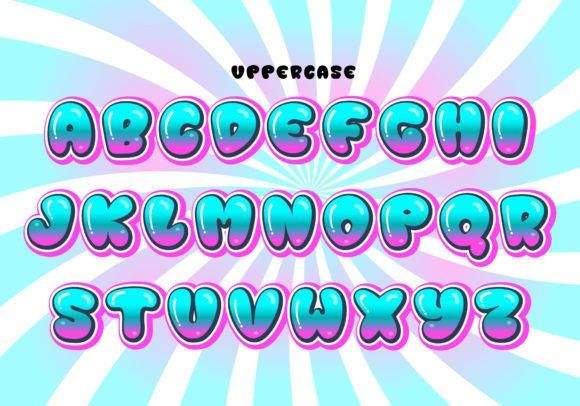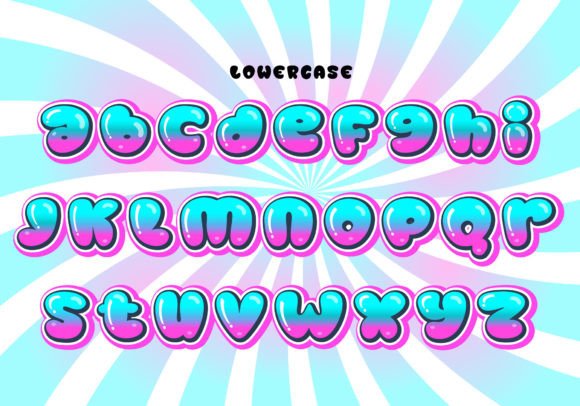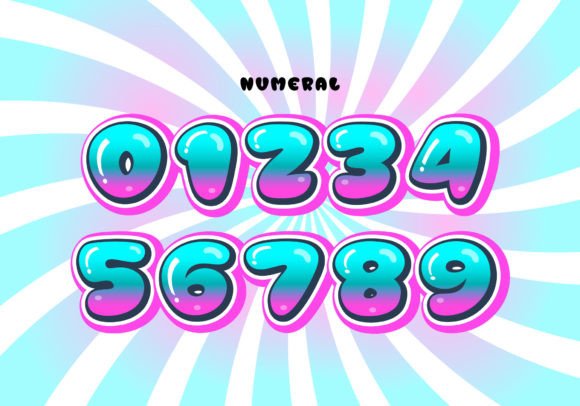
Bubble Pink Blue Font
Bubble Pink Blue is an attractive and groovy color font that is both colorful and bulky, with letters that pack a punch and demand attention. The letters are well-crafted, with a mix of bright hues and chunky shapes that create a sense of playfulness and energy. Its bold and vibrant appearance makes it perfect for logos, packaging, and designs that require a touch of excitement and personality.